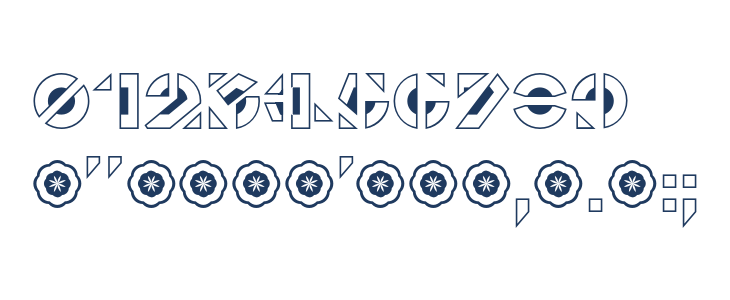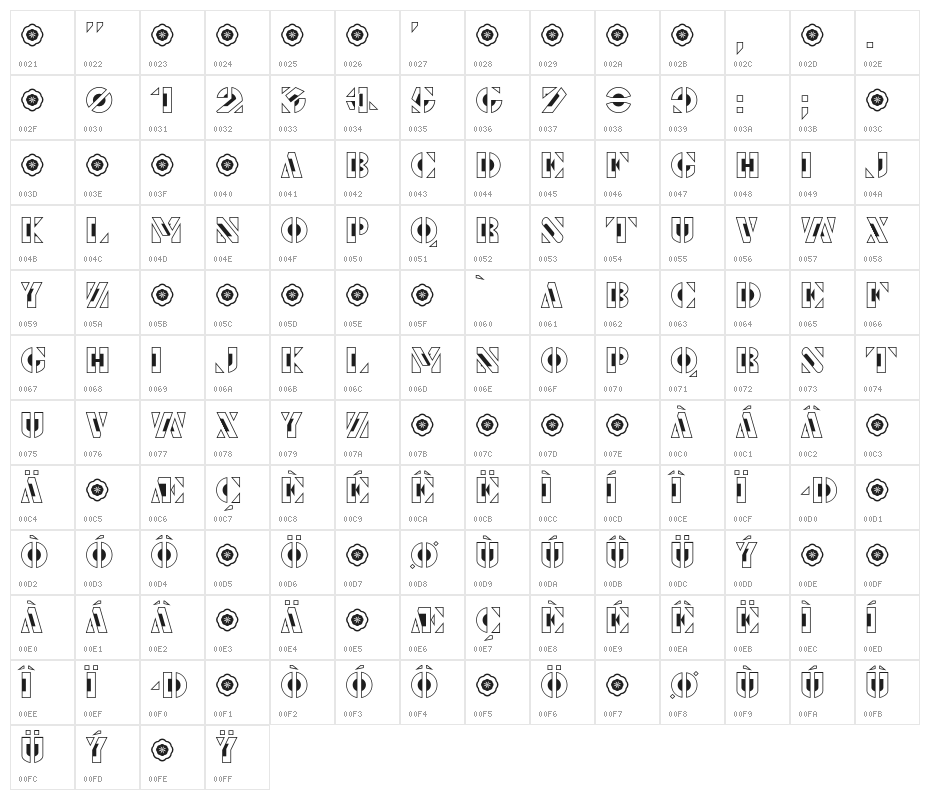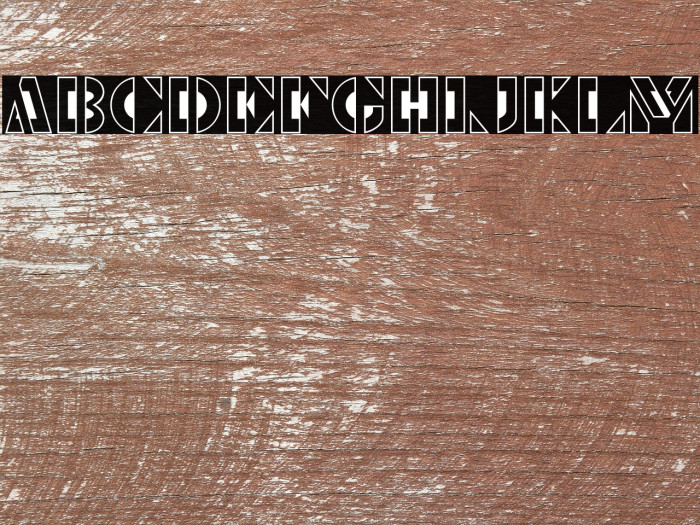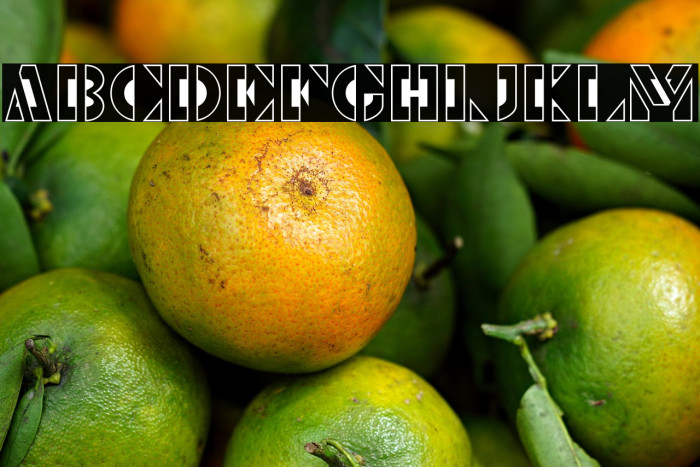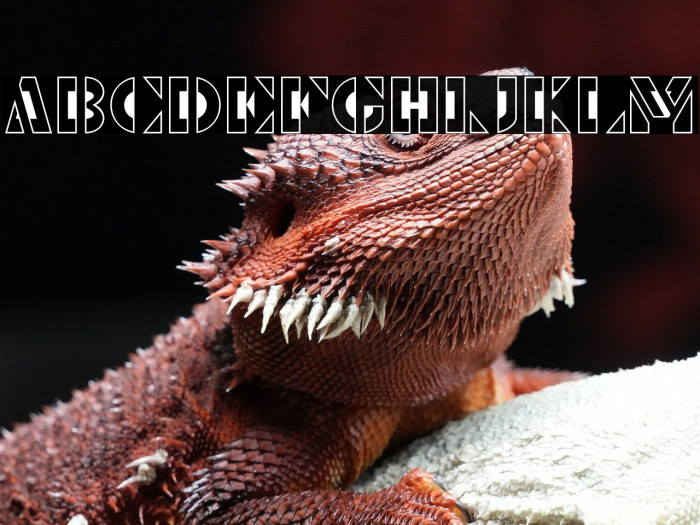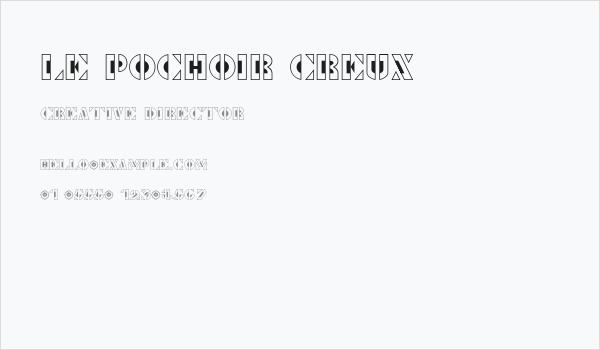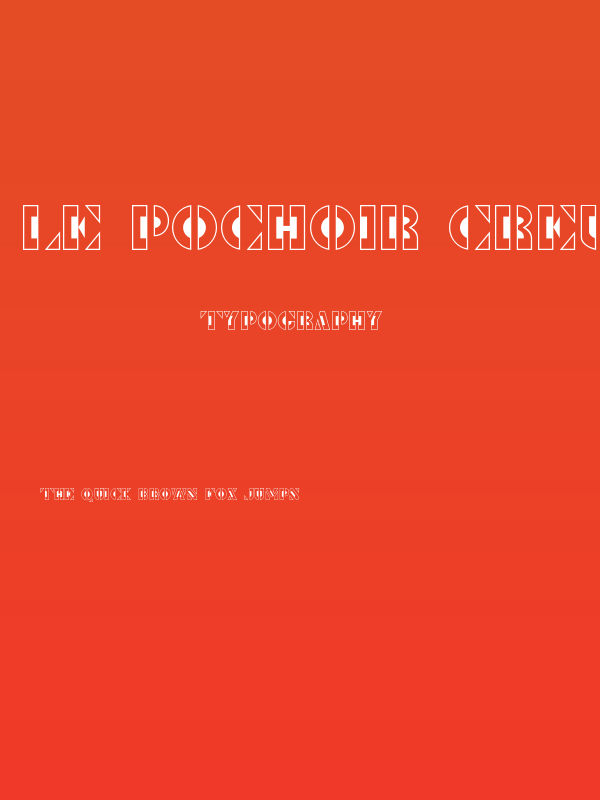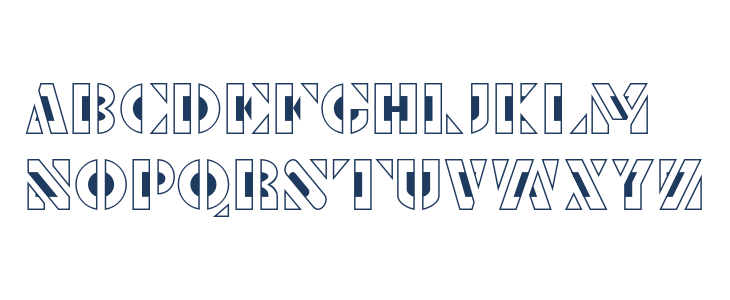
Le Pochoir Creux Font
Le Pochoir Creux Description
This font features a unique stencil-like design with geometric cutouts and bold, angular shapes. Each character is crafted with precision, creating a striking visual effect that combines modern aesthetics with a retro flair. The uppercase and lowercase letters maintain a consistent style, with sharp edges and a distinct, artistic flair. Numbers and special characters follow the same design principles, ensuring a cohesive look across all text elements. The font's high contrast and decorative elements make it ideal for eye-catching displays and creative projects.